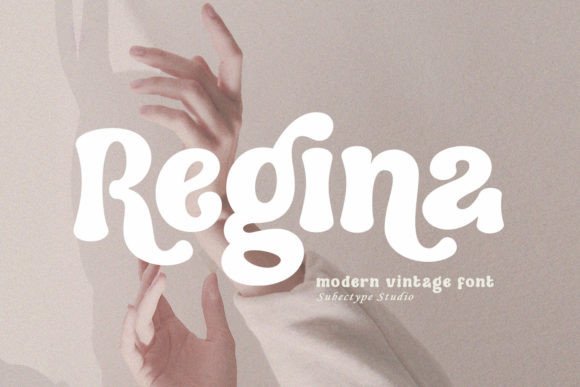
Step into a world of retro-inspired charm with Regina Font, the display font that exudes playful nostalgia and transports your designs to a vintage wonderland. Crafted with meticulous attention to detail by the talented team at Subectype, Regina Font is an artistic masterpiece that captures the essence of yesteryear, adding an irresistible touch of history and character to your creative projects.
This captivating display font is more than just a collection of letters; it's an artistic journey through time, where each glyph dances with a unique personality. Its soft curves and elegant strokes evoke a sense of longing for the good old days, while its playful spirit injects a touch of whimsy and lightheartedness into your designs.
Whether you're a seasoned designer seeking to add a touch of charm to your latest project or a beginner looking to make a lasting impression, Regina Font is your gateway to a world of endless creative possibilities. With its versatile nature, this font seamlessly adapts to a wide range of design concepts, effortlessly elevating your projects to new heights.
Picture this: a vintage-inspired poster advertising a local carnival, adorned with Regina Font's playful characters, inviting you to step into a world of laughter and merriments. Or perhaps a charming café menu, where Regina Font's elegant curves dance across the page, enticing you with its nostalgic ambiance.
The possibilities are truly boundless. Unleash your imagination and let Regina Font guide you through a journey of creativity, where the past and present harmoniously blend to create something truly remarkable.